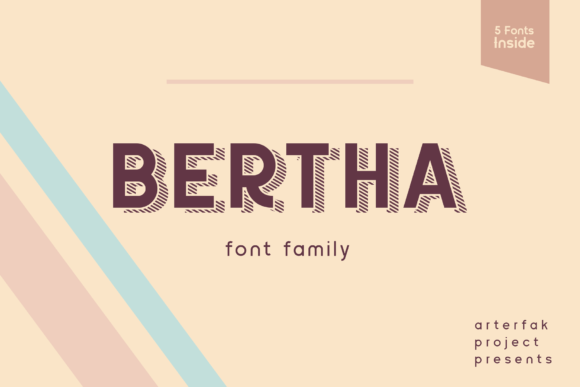
The Bertha Font: A Stylish Sans Serif Family for Your Design Needs
Have you ever been in the middle of a design project, and suddenly, you’re stuck on finding the perfect font? I recall a recent experience where I was working on a branding project for a trendy boutique, and I just couldn’t find a font that captured the right vibe. That’s when I stumbled upon the Bertha font, a stylish sans serif family that has become my go-to for many projects since then.
An Honest Review of Bertha Font
So, what makes Bertha font so special? Let’s dive into the good stuff and some minor quirks.
What I Love About Bertha Font
• ✨ Versatility: Bertha comes in 5 different styles, which can be mixed and matched to create a unique design or used as strong standalone fonts.
• ✅ Clean and Modern Look: The sans serif design gives it a clean and modern look, perfect for a wide range of design projects, from branding to digital media.
• 💡 Excellent for Headings and Body Text: The font family offers a range of weights, making it suitable for both headings and body text.
While Bertha font is fantastic, there are a few minor things to keep in mind:
• 🤔 Limited Language Support: As with many font families, Bertha might not support all languages or special characters, so it’s essential to check the font’s specifications before use.
• ⚠️ Not Ideal for Very Small Text: Due to its design, Bertha might not be the best choice for very small text, as some details might get lost.
The Story Behind Bertha Font
Bertha font was designed with versatility in mind. The creator aimed to produce a font family that could be used across various design projects, from elegant headings to readable body text. Inspired by modern typography trends, Bertha offers a fresh and stylish look that’s perfect for designers, crafters, and creative hobbyists.
What type of projects is Bertha font best suited for? Bertha font is versatile and can be used in a wide range of projects, including branding, digital media, print materials, and more.
Is Bertha font suitable for body text? Yes, Bertha font offers several weights, making it suitable for both headings and body text, although it might not be ideal for very small text sizes.